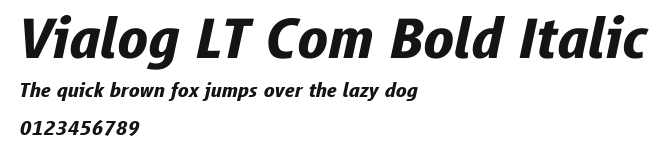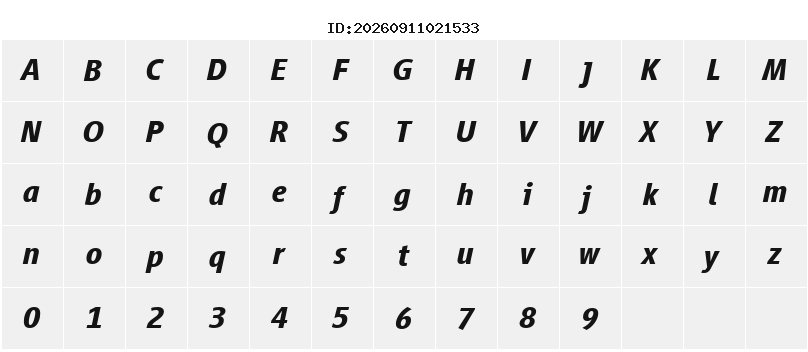
• Font Name: Vialog LT Com Bold Italic
• Designer: Werner Schneider
• Manufacturer: Linotype GmbH
• Description: Vialog is a large and versatile sans serif family consisting of four weights of roman with corresponding italics, each with small caps and oldstyle figures, released by Linotype Library in 2002. Designers Werner Schneider and Helmut Ness based the concept for Vialog on the forms in ""Euro Type,"" an unpublished type designed by Schneider in 1988 for the German Federal Transportation Ministry. For Vialog, Schneider made comprehensive legibility studies of the existing European transportation fonts, and combined and adapted the best features to make a new information system font family. He fine-tuned Vialog's characters and spacing with a special regard to the legibility problems of transportation settings, such as viewing type at distances and while moving. For example: cap I, J and lowercase i, j are common legibility problems in sans serif fonts, so in Vialog, these characters have serifs. In addition to its usefulness to the transportation industry, the Vialog family confidently meets the needs of corporate design and branding systems with its space-saving attributes for text settings, as well as the large number of weights and styles.
Vialog LT Com Bold Italic.ttf is a modern, elegant sans-serif font designed for ultimate readability and visual harmony. Perfect for branding, headlines, web design, and print materials.